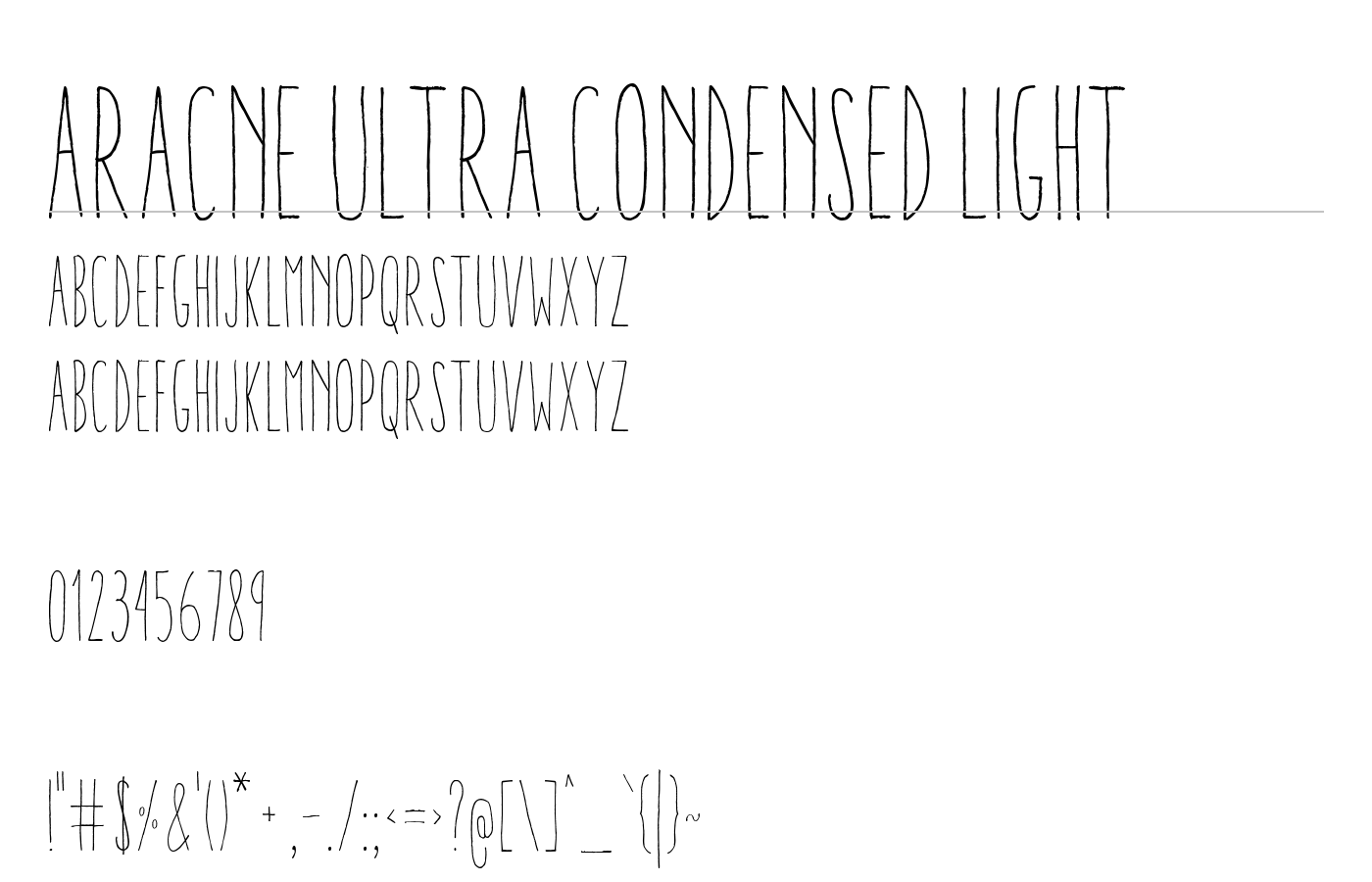
Aracne UltraCondensed Light Italic is a delicate and ultra-narrow sans serif font with a hand-drawn, slightly whimsical feel. Its tall, slender letterforms and light weight give it an airy, elegant personality that works well for creative headlines or artistic branding. This font suits designs seeking a unique, charming touch without heavy visual weight, making it ideal for fashion, editorial, or modern minimalist projects.
Aracne UltraCond RegItal Font
About Aracne UltraCond RegItal Font
| Font family | Aracne UltraCond RegItal Font |
| Designer | Julia Martinez Diana, Antipixel |
| Font subfamily | Italic, Condensed |